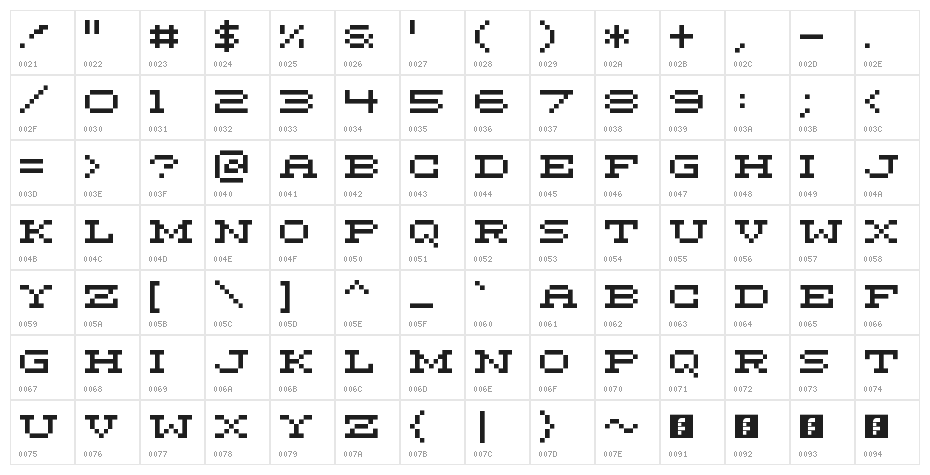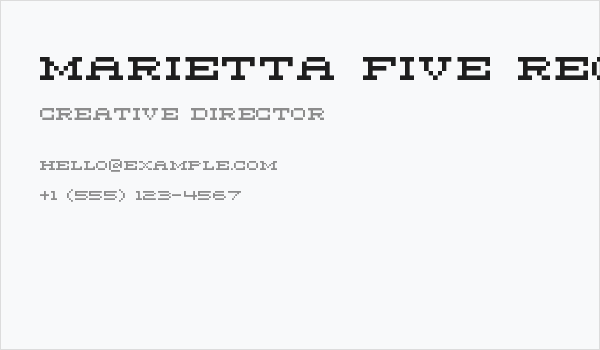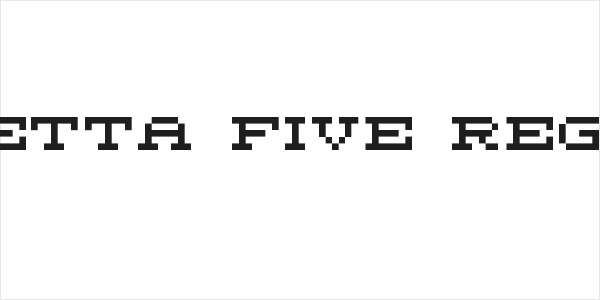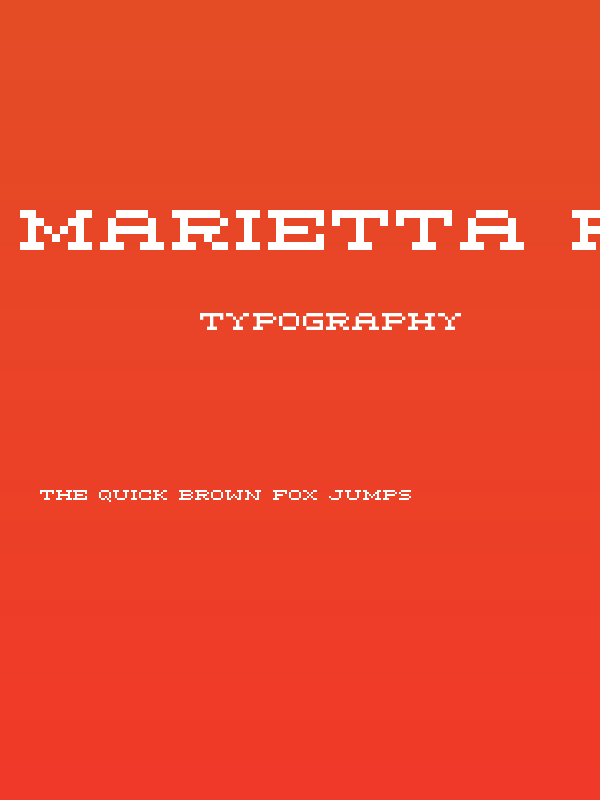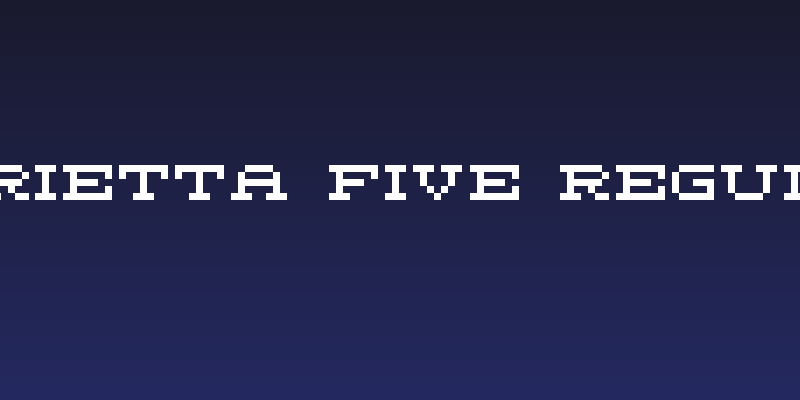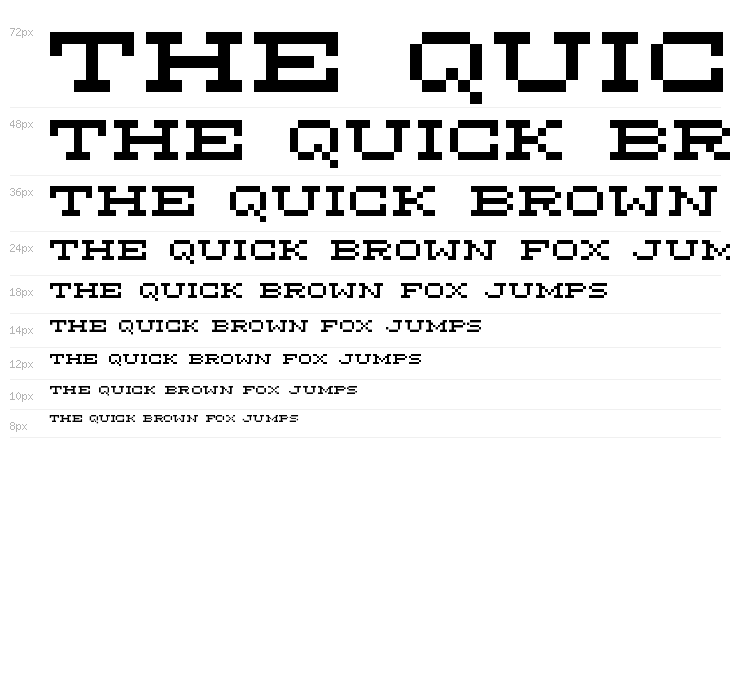
Marietta Five Regular Font
Marietta Five Regular Description
This font features a pixelated, blocky design reminiscent of early digital displays and retro video games. Each character is constructed with a uniform grid-like structure, giving it a distinctly geometric and mechanical appearance. The uppercase and lowercase letters maintain a consistent height, contributing to a monospaced feel, although the font is not strictly monospaced. The numerals and special characters follow the same pixelated style, ensuring visual coherence across all glyphs. This font's unique aesthetic is both nostalgic and modern, making it suitable for projects that require a digital or retro theme.
| Overall Style | Retro, Digital |
| Proposed Projects | Ideal for video game design, digital art projects, retro-themed posters, and tech-related branding. |